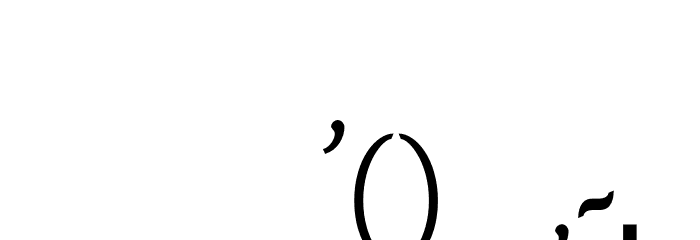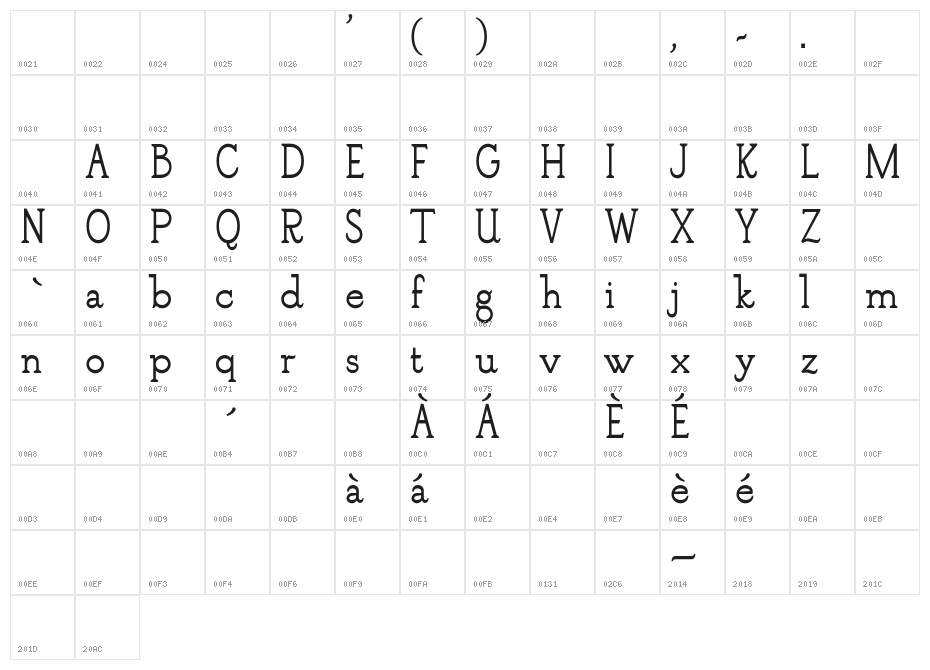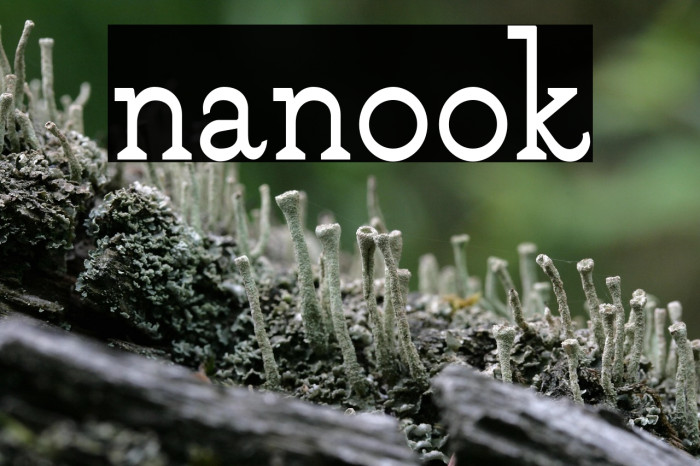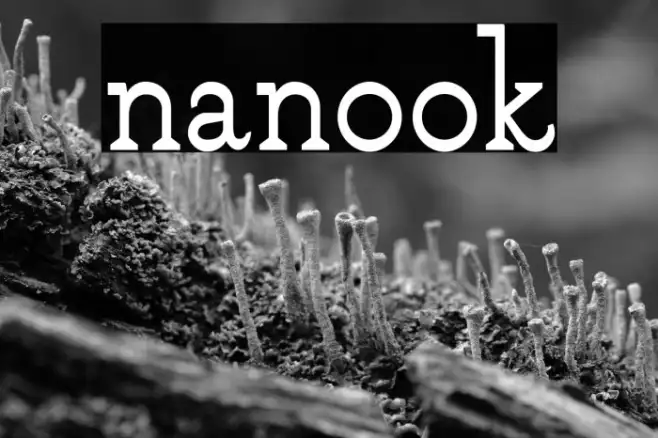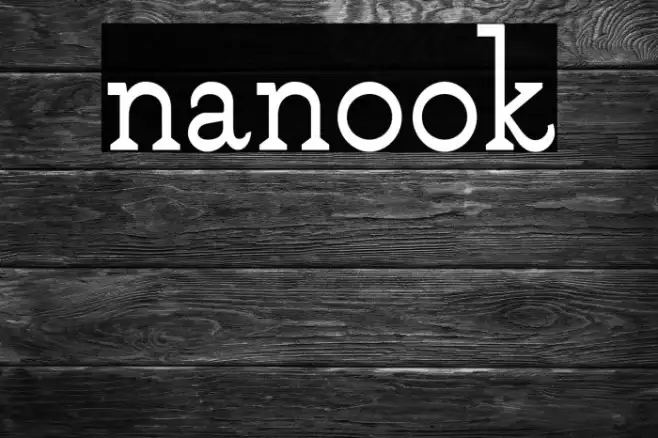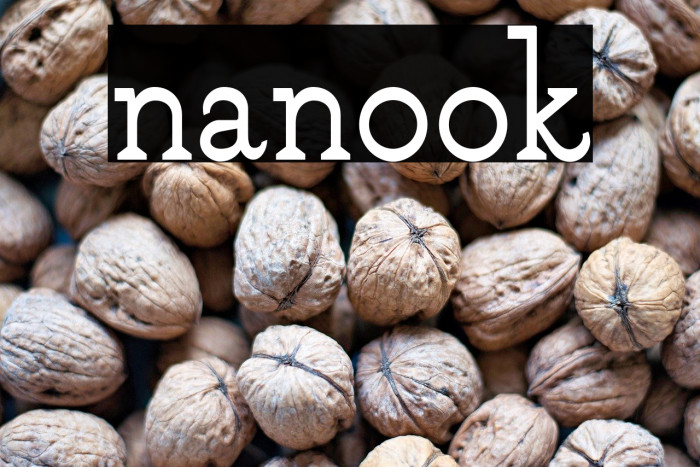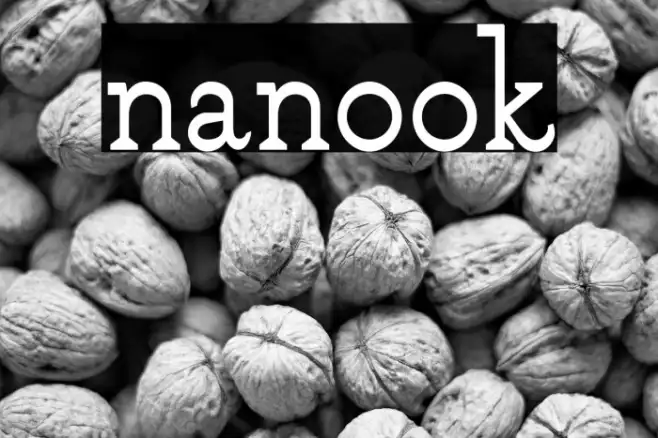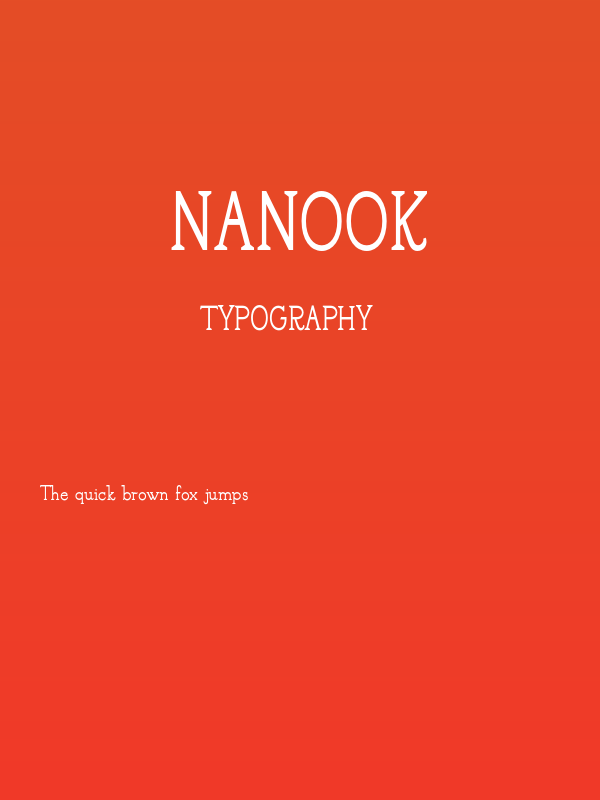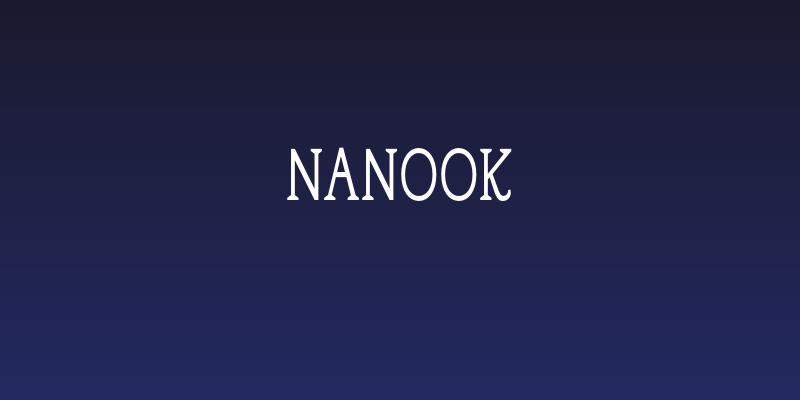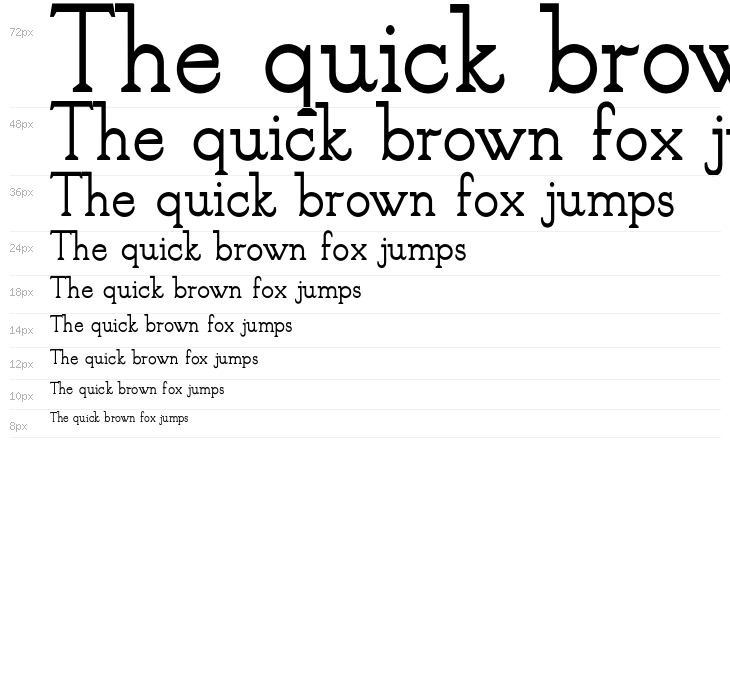
nanook Font
nanook Description
This font features a classic serif style with a modern twist. The uppercase letters are tall and elegant, with a slight curvature that adds a touch of sophistication. The lowercase letters maintain a consistent style, offering a harmonious blend of traditional and contemporary elements. The numerals are clear and distinct, ensuring readability. Special characters are thoughtfully designed, maintaining the overall aesthetic. This font is versatile, suitable for both digital and print media, offering a timeless appeal that can enhance any project.
| Proposed Projects | Ideal for book covers, editorial design, branding, and formal invitations. |